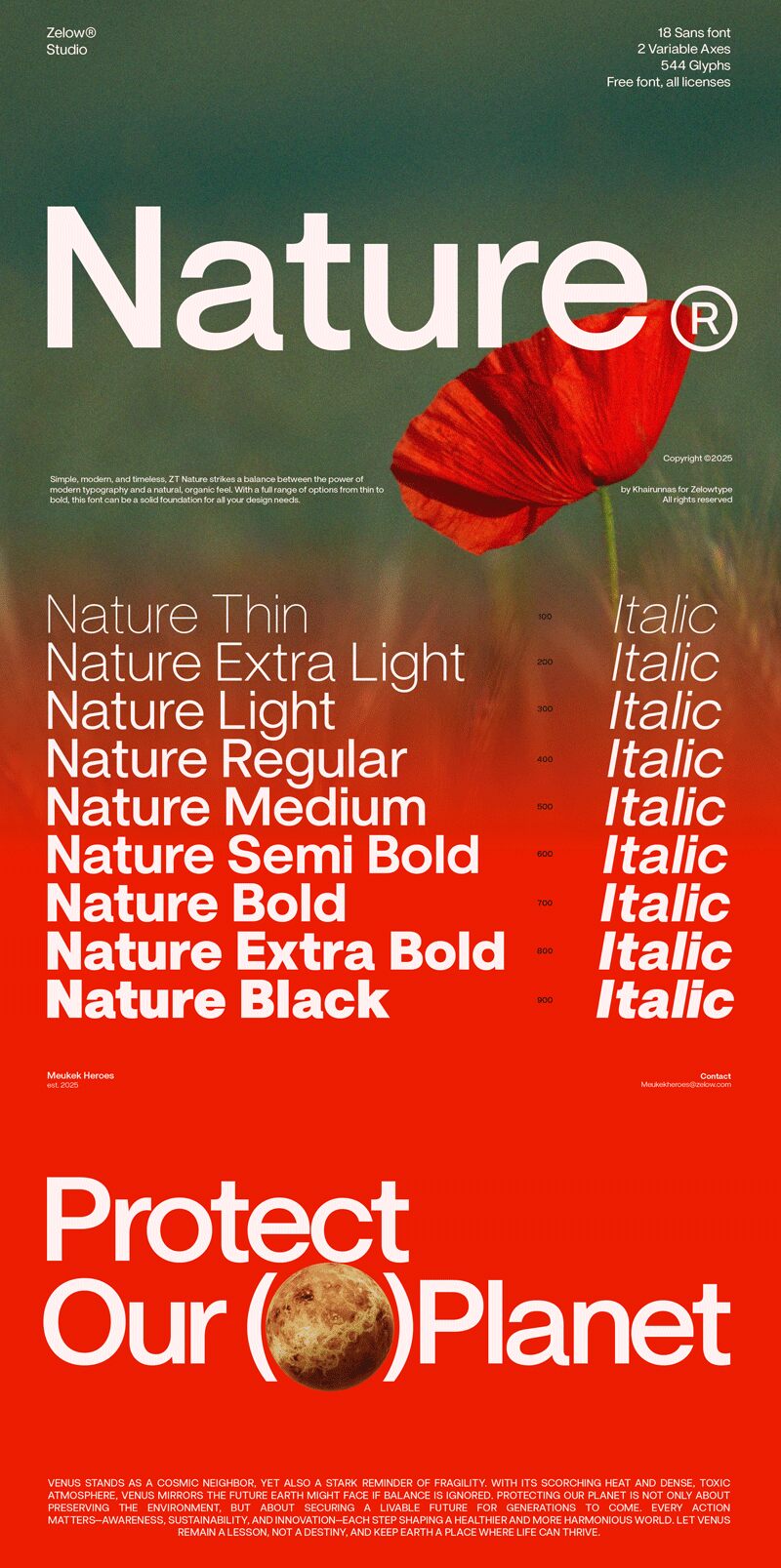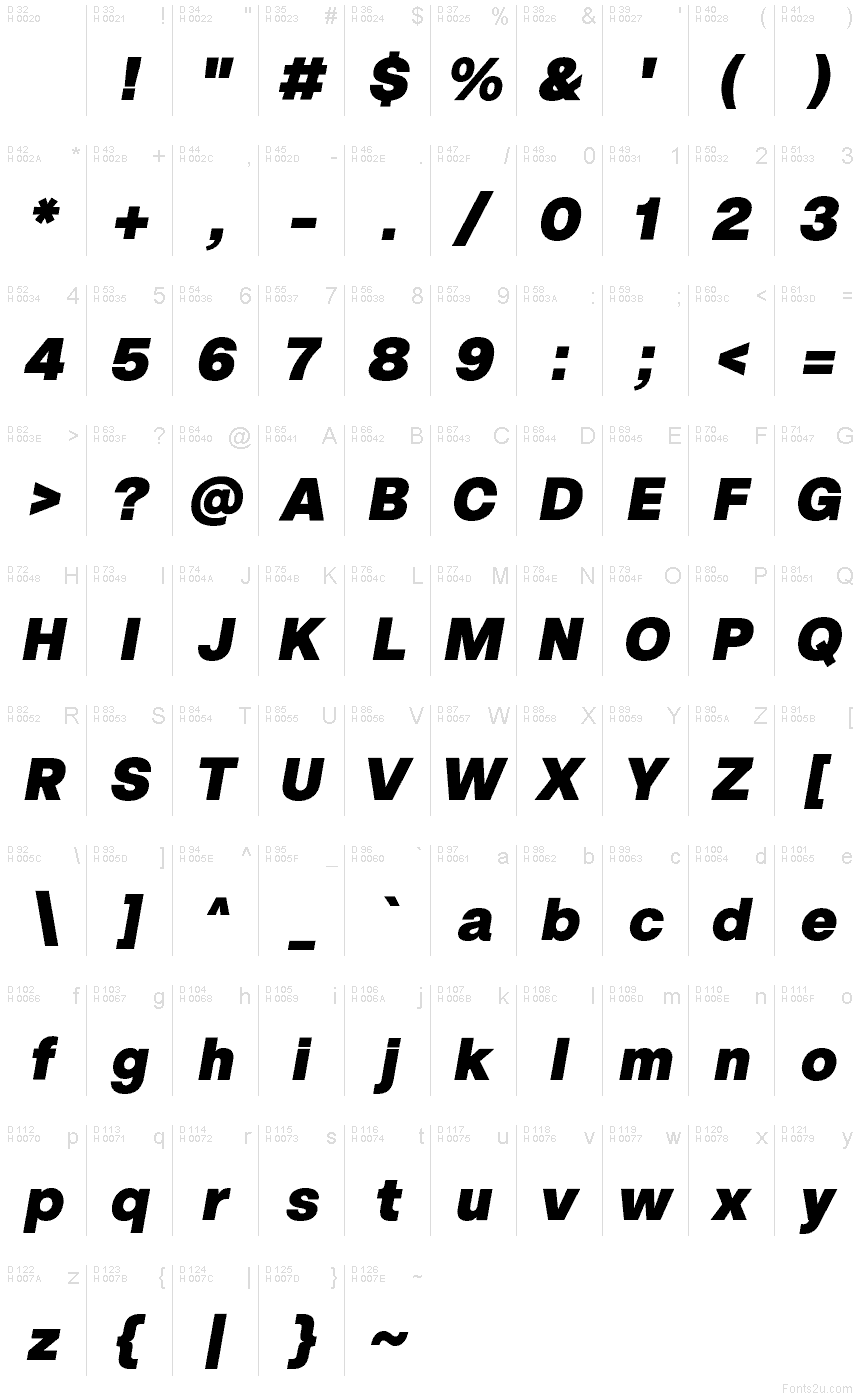
ZT Nature Black Italic
ZT Nature is a modern sans serif that combines geometric precision with an organic sense of rhythm.
Developed to function across both print and digital environments, it offers clarity, neutrality, and adaptability without losing its unique character. Designed for designers who value consistency and flexibility, ZT Nature serves as a reliable typographic tool for contemporary communication.